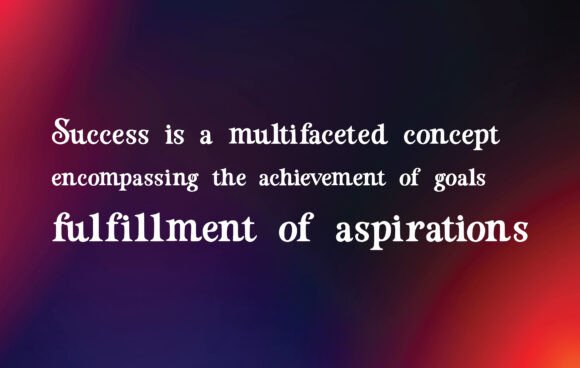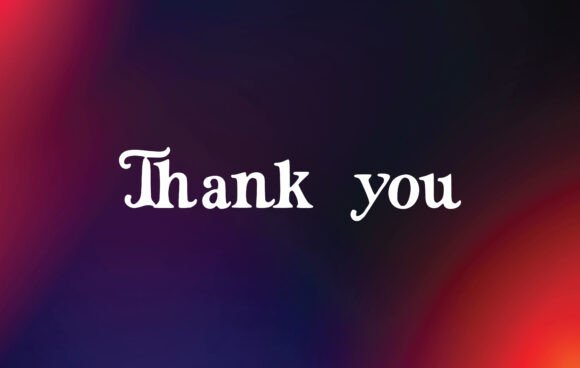
Introducing the Garfield Font: Elevate Your Creative Projects with Style
Are you a designer, craftsperson, or simply a creative enthusiast looking for the perfect font to take your projects to the next level? Look no further than the Garfield Font! This stunning font is designed to help you unleash your imagination and bring your ideas to life in a visually appealing way. With its unique blend of style and versatility, the Garfield Font is an excellent choice for creating eye-catching logos, branding materials, and quotes that demand attention.
The Beauty of Garfield Font
So, what makes the Garfield Font so special? For starters, its lovely and beautiful design is sure to captivate your audience and leave a lasting impression. The font’s elegant curves and lines are carefully crafted to create a sense of sophistication and refinement, making it perfect for projects that require a touch of class and elegance. Whether you’re working on a logo, brochure, or social media graphics, the Garfield Font is sure to add a level of polish and professionalism that will set your work apart from the rest.
Unleash Your Creativity with Garfield Font
One of the best things about the Garfield Font is its incredible versatility. With its wide range of applications, you can use this font to create a variety of different materials, from bold and colorful posters to sleek and modern logos. The font’s flexibility also makes it an excellent choice for crafters and DIY enthusiasts who want to add a personal touch to their projects. Whether you’re creating handmade cards, scrapbook pages, or other craft projects, the Garfield Font is sure to inspire your creativity and help you achieve professional-looking results.
Why Choose Garfield Font?
So, why should you choose the Garfield Font over other fonts on the market? Here are just a few reasons why this font stands out from the rest:
- Unique Design: The Garfield Font features a unique and beautiful design that is sure to capture your audience’s attention and leave a lasting impression.
- Versatility: This font is incredibly versatile and can be used to create a wide range of materials, from logos and branding materials to quotes and social media graphics.
- High-Quality: This font is of exceptionally high quality, ensuring that your projects will look professional and polished.
- Pair with Other Fonts: The Garfield Font pairs well with other fonts, so feel free to get creative and try out different combinations.
In conclusion, the Garfield Font is an exceptional choice for designers, crafters, and creative enthusiasts who want to take their projects to the next level. With its unique design, versatility, and ease of use, this font is sure to inspire your creativity and help you achieve professional-looking results. Whether you’re working on a logo, branding materials, or quotes, the Garfield Font is the perfect choice for adding a touch of style and sophistication to your work.